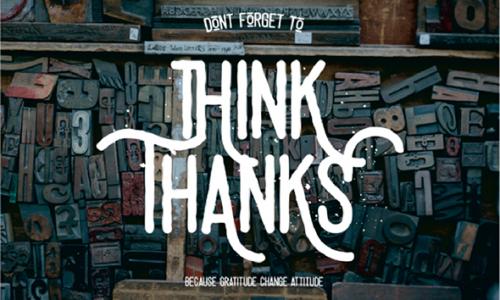
Capsule X Pro Font - Regular
Capsule X Pro is a sleek condensed sans-serif font. Inspired from self esteem, love, enlightenment and motivation symbolized as capsule- A driving force. The design is intended to be highly readable, reasonably compact. Being visually appealing, this font can be used in various design projects. This font supports extended Latin characters. Great for titles and subtext. Click screenshots for large view. Font file includes: Regular, format: OTF